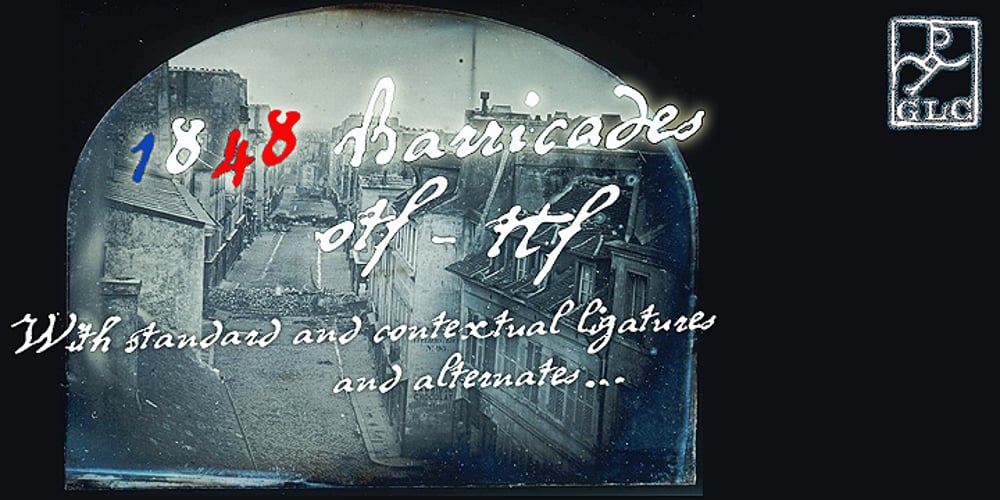
1848 Barricades Font Family was designed by published by GLC. 1848 Barricades contains 1 styles and family package options. This family was inspired from a lot of 1848-1850 French engraved documents reproducing handwritten texts talking about the Paris’ insurrection days in June 1848 (described by Victor Hugo in Les misérables) . It seems that all were first written using quill pens, as the strokes are too much heavy and bold for metal pens and even though the engraver work is very fine. We have added only a few characters, most of them were present in the originals. The TTF and OTF versions are enriched with more than 50 ligatures or alternate characters.